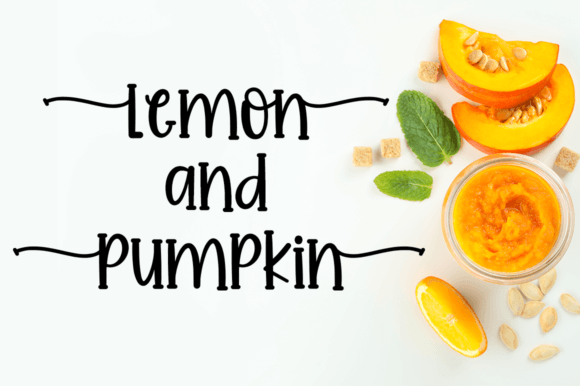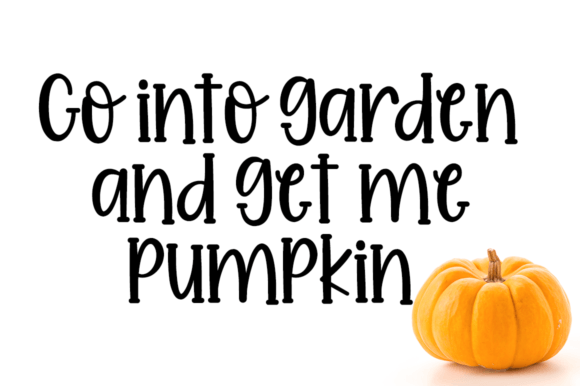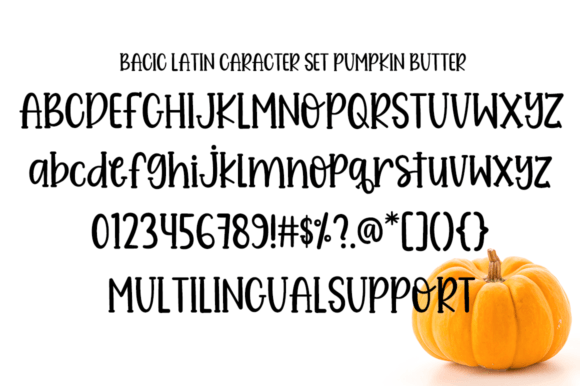
Pumpkin Butter Font: A Whimsical Handwritten Font for Cute DIY Projects
About the Pumpkin Butter Font
Get ready to be inspired by Pumpkin Butter Font, a fresh and dynamic typeface for modern creators. Pumpkin Butter is a fun and whimsical handwritten font. A little bit quirky, this font looks incredibly adept in a wide variety of contexts!
Pumpkin Butter’s playful charm makes it ideal for projects requiring a touch of whimsy, such as children’s books, greeting cards, branding for artisanal food companies, or social media graphics. Its informal nature, however, makes it less suitable for large blocks of body text or formal documents. Avoid using it for UI elements where legibility is paramount.
Pairing Pumpkin Butter effectively requires considering its handwritten, slightly quirky style. A clean sans-serif like Open Sans or Lato would provide a strong contrast and enhance readability in supporting text. For a more sophisticated pairing, consider a classic serif like Garamond or a delicate script font for added elegance, but use sparingly as accents.
Pumpkin Butter’s overall personality is best described as friendly and approachable, conveying a sense of warmth and handcrafted quality. This makes it particularly well-suited to brands aiming for a nostalgic or artisan feel.
Pumpkin Butter Font Usage Examples
Pumpkin Butter Font Example